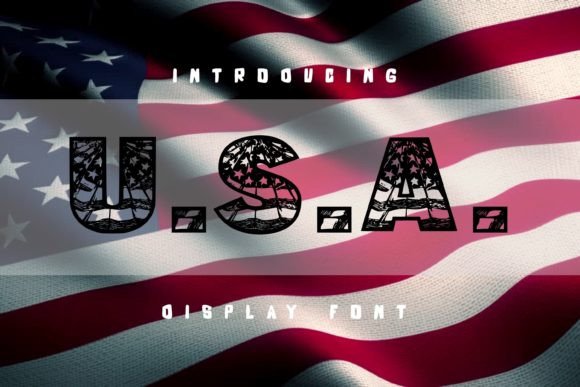
Introducing the U.S.A. Font, an icon of patriotism that will ignite your creative spirit like never before. This display font is a masterpiece crafted by the talented Rasa, designed to bring a touch of American pride to your digital creations.
With its bold and unyielding strokes, the U.S.A. Font exudes an aura of strength and unity. Its distinct letterforms, reminiscent of America's unwavering resolve, are sure to captivate your audience and leave a lasting impression.
Unlock the power of the U.S.A. Font and transform your designs into a celebration of the American spirit. Adorn your 4th of July creations and decorations with a font that embodies the essence of freedom and independence. Let your designs soar high, just like the American flag, and ignite the spark of patriotism in every heart that encounters them.
But the U.S.A. Font is not just confined to patriotic designs. Its versatility knows no bounds. Unleash your creativity and explore its endless possibilities in logos, posters, social media graphics, website headers, and any other digital medium that demands attention.
The U.S.A. Font is your passport to design excellence. Its crisp and legible letterforms ensure effortless readability, even on the smallest of displays. Its compact structure makes it an ideal choice for designs where space is at a premium.
With the U.S.A. Font by your side, you'll discover a world of creative opportunities, limited only by the boundaries of your imagination. Embrace the spirit of America and let your designs radiate with pride and inspiration.